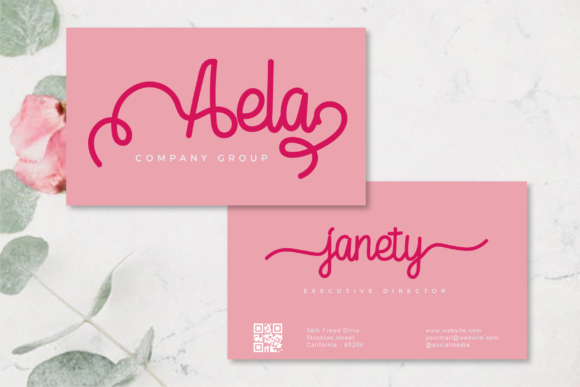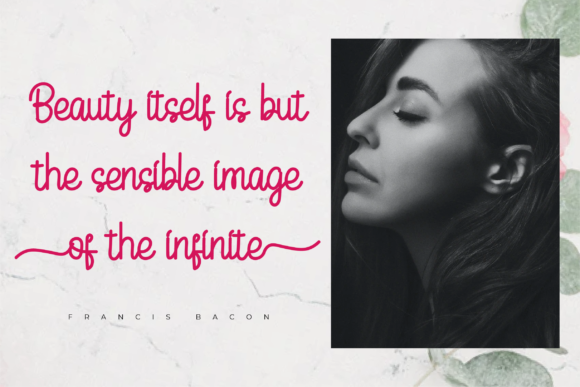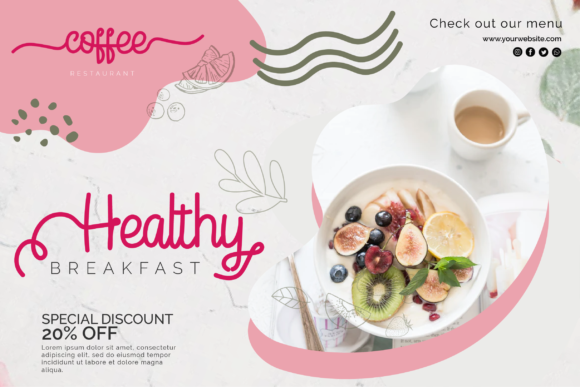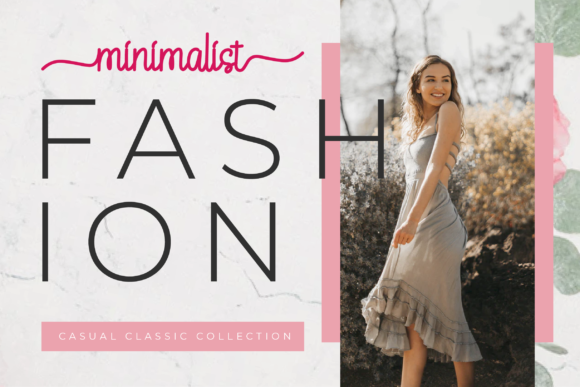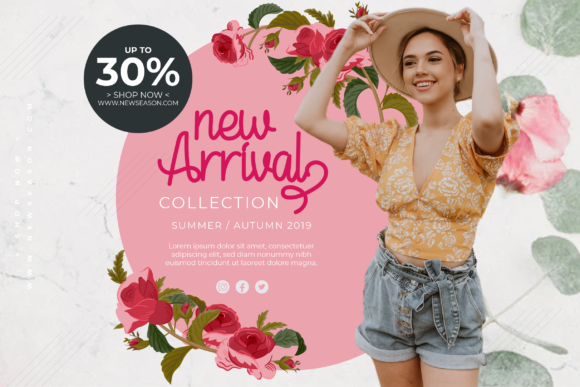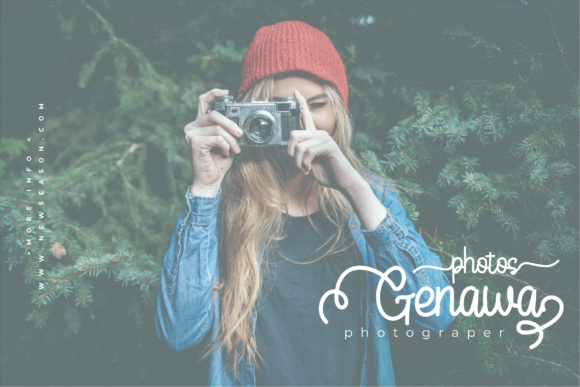
Introducing Flower Signature Font: Elevate Your Designs with Elegance
Are you a designer or crafter looking for a beautiful and elegant font to take your projects to the next level? Look no further than Flower Signature Font, a stunning handwritten font that is sure to impress. With its unique and flowing script, Flower Signature Font is perfect for a wide range of design projects, from branding and headings to wedding designs, invitations, signatures, logos, labels, and more.
What Makes Flower Signature Font So Special?
Flower Signature Font is a beautifully crafted handwritten font that exudes elegance and sophistication. Its unique and flowing script is perfect for adding a touch of personality to any design project. The font is highly versatile and can be used for a variety of purposes, including:
- Branding: Create a lasting impression with your brand’s identity using Flower Signature Font. The font’s elegant script is perfect for logos, business cards, and letterheads.
- Wedding Designs: Make your wedding designs truly special with Flower Signature Font. The font is perfect for wedding invitations, save-the-date cards, and ceremony programs.
- Invitations: Whether it’s a birthday party, baby shower, or graduation ceremony, Flower Signature Font is the perfect choice for creating beautiful and elegant invitations.
- Signatures: Add a personal touch to your digital signatures or handwritten notes with Flower Signature Font.
- Logos: Create a unique and memorable logo for your business or brand using Flower Signature Font.
- Labels: Use Flower Signature Font to create beautiful and elegant labels for your products or gifts.
Key Features of Flower Signature Font
Here are some of the key features that make Flower Signature Font a must-have for designers and crafters:
- Unique and Elegant Script: Flower Signature Font features a beautiful and flowing script that is sure to impress.
- Highly Versatile: The font can be used for a wide range of design projects, from branding and headings to wedding designs and invitations.
- Easy to Read: Despite its elegant script, Flower Signature Font is highly legible and easy to read.
Tips for Using Flower Signature Font
Here are some tips for using Flower Signature Font to get the most out of this beautiful font:
- Use it for Headings: Flower Signature Font is perfect for headings and titles. Use it to add a touch of elegance to your designs.
- Pair it with Other Fonts: Experiment with pairing Flower Signature Font with other fonts to create a unique and interesting contrast.
- Use it for Branding: Use Flower Signature Font consistently across all your branding materials to create a cohesive and recognizable identity.
Flower Signature Font is a beautiful and elegant handwritten font that is sure to elevate your design projects to the highest level. With its unique and flowing script, high versatility, and ease of use, this font is perfect for designers and crafters looking to add a touch of personality to their work. Whether you’re creating branding materials, wedding designs, invitations, or logos, Flower Signature Font is the perfect choice. So why wait? Download Flower Signature Font today and start creating stunning designs that will leave a lasting impression!